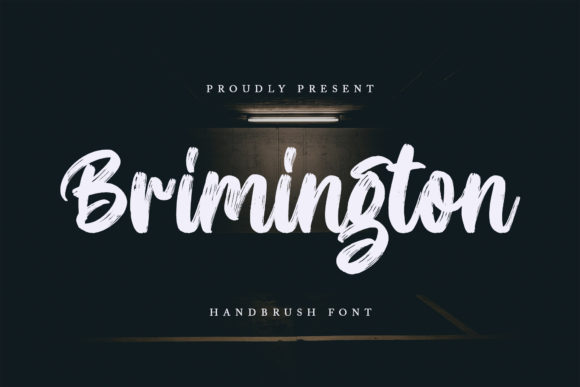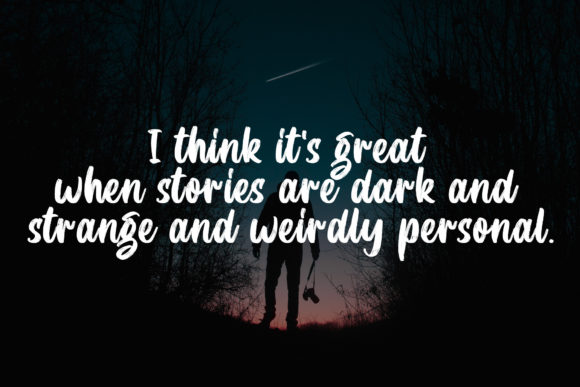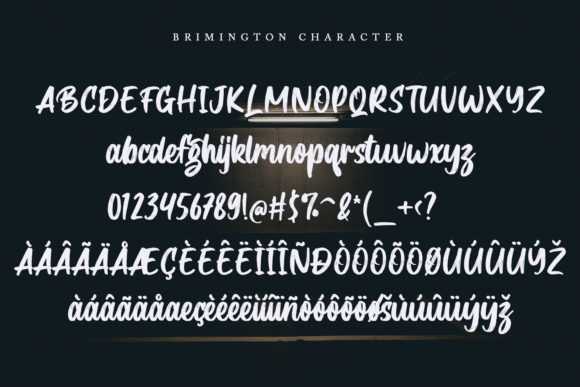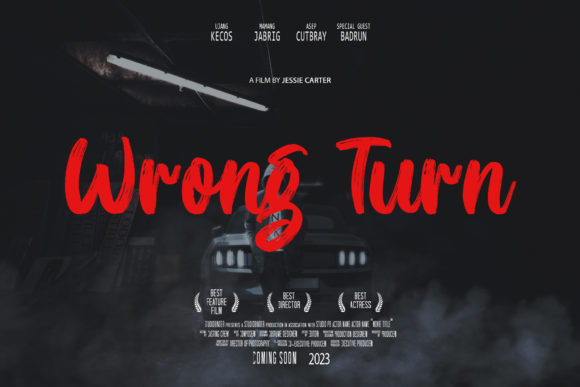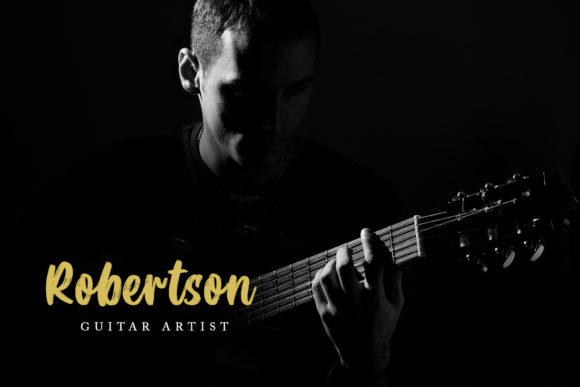
About Brimington Font
Brimington is a flowing, paint brushed script font. It is perfect for all your needs, such as a logo, printed quotes, badge, insignia, packaging, headline, poster, t-shirt/apparel, greeting card, and wedding invitation.